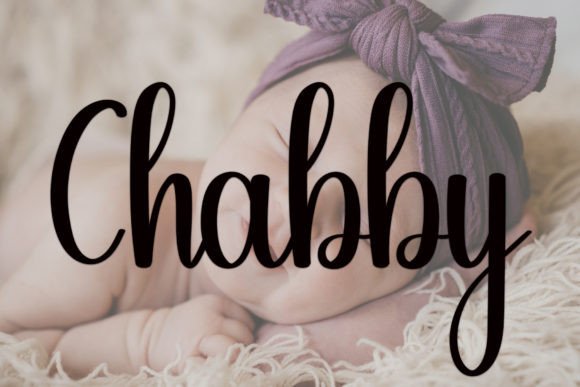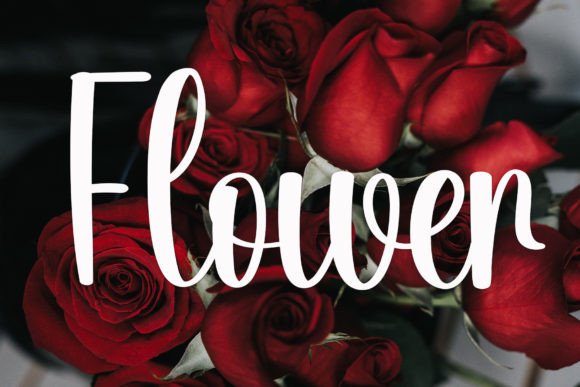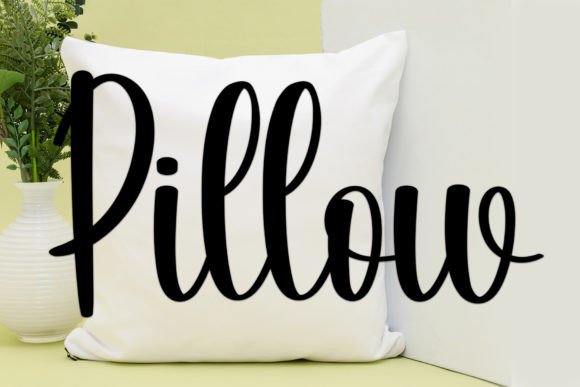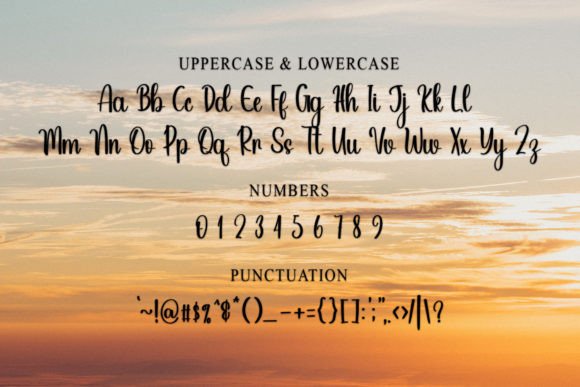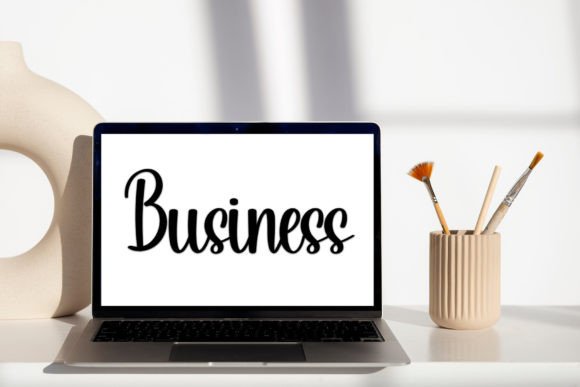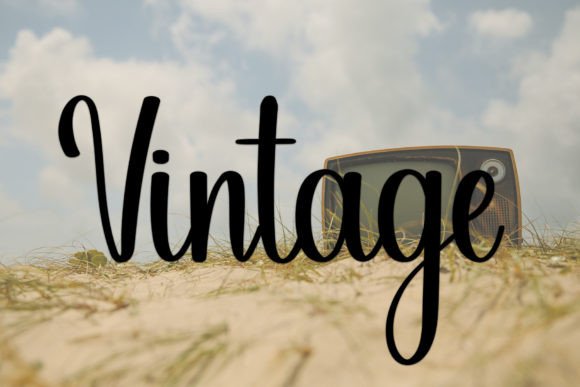
Introducing Graduation Font: The Elegant and Timeless Choice for Your Designs
Are you looking for a font that exudes elegance and sophistication? Look no further than Graduation Font, a beautiful handwritten font that is perfect for adding a touch of class to your favorite projects. With its incredibly distinct and timeless style, Graduation Font is sure to fall in love with its charm and versatility.
What is Graduation Font?
Graduation Font is a neat and beautiful handwritten font that is described by an elegant touch. It is a carefully crafted font that is designed to provide a sense of sophistication and refinement to your designs. Whether you’re working on a project for a client or creating something for personal use, Graduation Font is the perfect choice for adding a touch of elegance and style.
Key Features of Graduation Font
- Elegant and Refined: Graduation Font is a beautifully crafted font that exudes elegance and refinement. Its smooth lines and flowing curves make it perfect for creating sophisticated designs.
- Handwritten Style: Graduation Font has a handwritten style that gives it a personal and unique touch. It’s perfect for adding a human element to your designs.
- Timeless Appeal: Graduation Font has a timeless appeal that makes it suitable for a wide range of projects. Whether you’re working on a modern design or a vintage-inspired project, Graduation Font is sure to fit right in.
- Versatile: Graduation Font is a versatile font that can be used for a wide range of projects, from wedding invitations and greeting cards to branding and packaging.
Why Choose Graduation Font?
There are many reasons why Graduation Font is the perfect choice for your designs. Here are just a few:
- Unique Style: Graduation Font has a unique and distinct style that sets it apart from other fonts. Its elegant and refined design makes it perfect for creating sophisticated designs.
- Easy to Read: Graduation Font is easy to read, even at small sizes. This makes it perfect for use in body text or for creating designs that require a lot of text.
- High-Quality: Graduation Font is a high-quality font that is designed to provide a professional finish to your designs.
How to Use Graduation Font
Graduation Font is easy to use and can be incorporated into your designs in a variety of ways. Here are a few ideas to get you started:
- Wedding Invitations: Graduation Font is perfect for wedding invitations, with its elegant and refined design making it suitable for formal and informal weddings alike.
- Greeting Cards: Graduation Font is also perfect for greeting cards, with its handwritten style giving it a personal and unique touch.
- Branding and Packaging: Graduation Font can be used for branding and packaging, adding a touch of elegance and sophistication to your products.
Tips and Tricks for Using Graduation Font
Here are a few tips and tricks for using Graduation Font:
- Pair with Other Fonts: Graduation Font can be paired with other fonts to create a unique and interesting design. Try pairing it with a bold font for a striking contrast.
- Experiment with Colors: Graduation Font looks great in a variety of colors, from bold and bright to soft and pastel. Experiment with different colors to find the perfect look for your design.
- Use for Headings and Titles: Graduation Font is perfect for use in headings and titles, with its elegant and refined design making it suitable for creating eye-catching designs.
Graduation Font is a beautiful and elegant handwritten font that is perfect for adding a touch of sophistication to your designs. With its timeless appeal and versatile design, Graduation Font is sure to become a favorite in your font collection. Whether you’re working on a wedding invitation, greeting card, or branding project, Graduation Font is the perfect choice for creating spectacular designs.